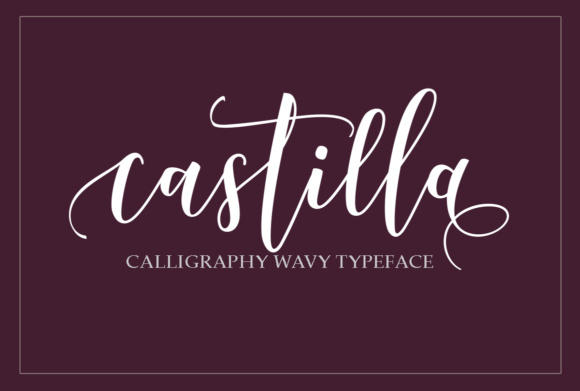
Unleash the Enchantment of Your Designs with Castilla Font: A Stroke of Beauty
Behold the captivating Castilla Font, an enchanting script typeface that will transform your creative visions into masterpieces. Immerse yourself in the world of artistry as this font's graceful lines and elegant curves bring a touch of allure to every letter. Whether you're a seasoned designer or just starting your creative journey, Castilla Font is your gateway to unlocking a world of design possibilities.
Step into the realm of sophistication with Castilla Font. Its wavy strokes and modern calligraphy bestow an air of uniqueness upon your designs. From captivating displays to captivating titles, this font weaves its magic, leaving an indelible mark on your audience. Its versatility shines through as it effortlessly blends into a myriad of design styles, seamlessly enhancing your creative endeavors.
With Castilla Font as your creative companion, you'll embark on a journey of boundless inspiration. Its ability to make any design stand out is nothing short of extraordinary. Whether you're crafting logos, invitations, posters, or social media graphics, Castilla Font will elevate your creations to new heights, leaving a lasting impression on all who behold them.
Indulge in the boundless versatility of Castilla Font. Its charm extends far beyond the realm of digital design. Unleash your creativity in the world of physical art, transforming canvases and fabrics into breathtaking masterpieces. The possibilities are endless as Castilla Font breathes life into your artistic expressions, captivating the senses and igniting imaginations.